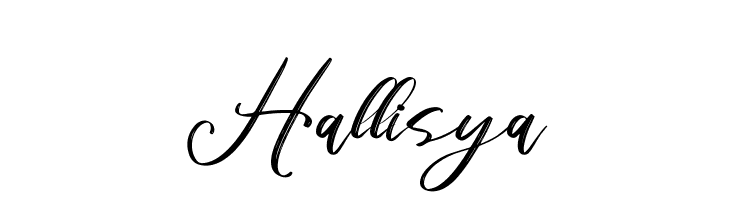
A modern, elegant script font with flowing, cursive strokes and medium contrast.
A graceful and flowing script font with a natural handwriting style.
A playful and elegant script font with flowing, interconnected characters.
A lively and elegant script font with smooth connections and graceful curves.
A graceful script font with flowing, cursive letters and elegant numerals.